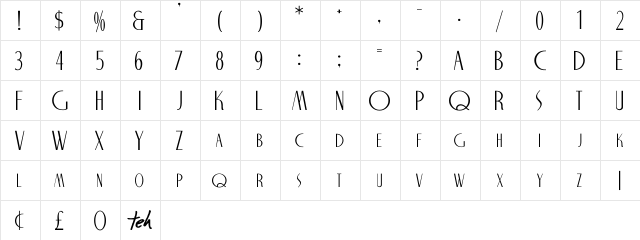
NightClub Regular
Design Context for NightClub Typeface
NightClub is a composed and adaptable typeface that performs quietly and consistently across a wide range of design contexts.